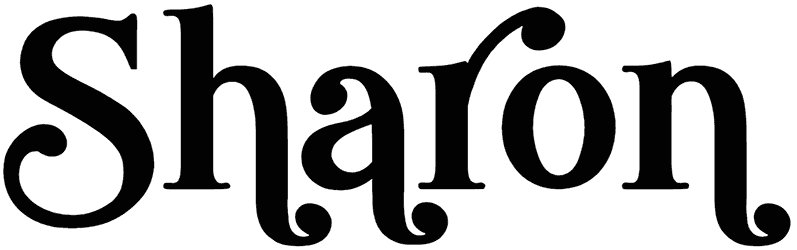
Sharon Font
Undoubtedly, impressing the audience is easier than ever with the help of a serif font like Sharon, which carries a sense of confidence, respect, validity, and professionalism. This font is set to be your assistant in designing graphic content including posters, logos, invitations, business cards, and magazines. Considering its numerous advantages, not fully supporting numbers is not a serious problem.
Designed by: Haksen Studio